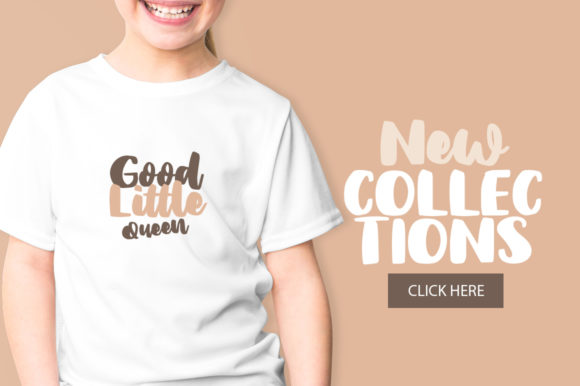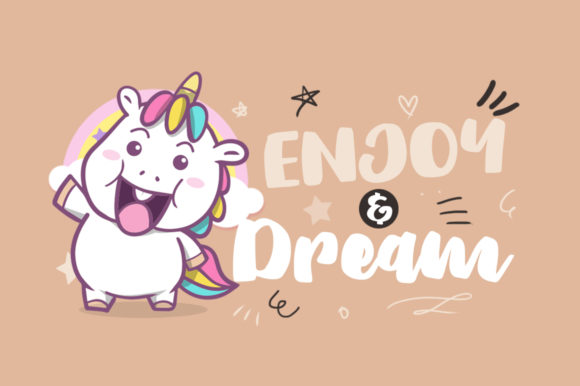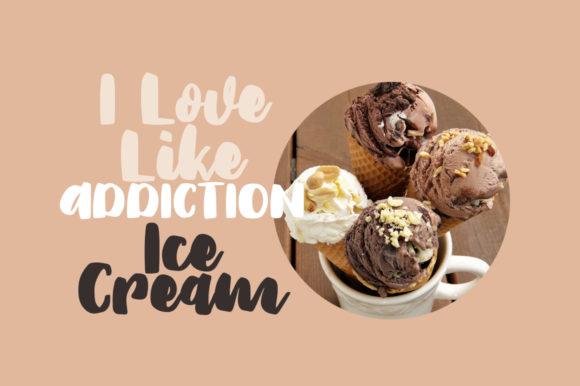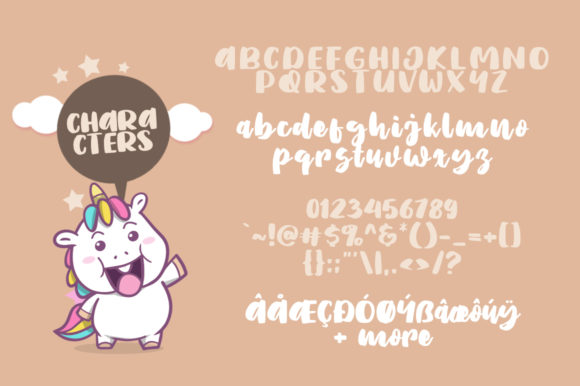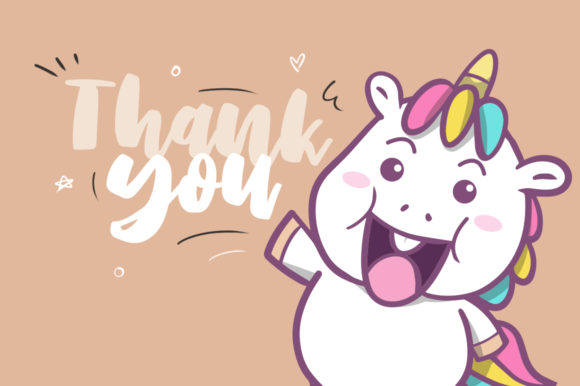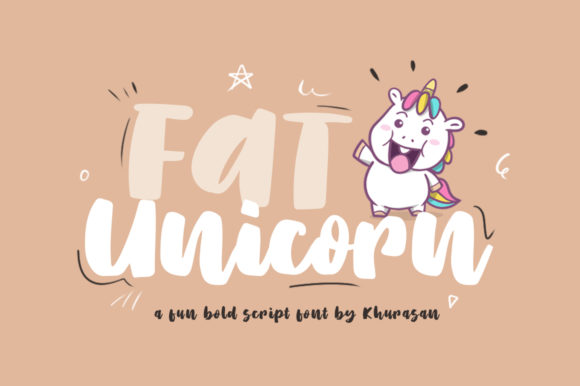
Discover the Magical World of Fat Unicorn Font
Are you tired of using the same old fonts in your designs? Do you want to add a touch of whimsy and magic to your creations? Look no further than the Fat Unicorn Font! This unique bold font is sure to make all your designs stand out and have a special touch.
What is Fat Unicorn Font?
Fat Unicorn Font is a one-of-a-kind font that is sure to capture the hearts of designers and crafters alike. Its bold and playful design makes it perfect for a wide range of projects, from invitations and greeting cards to posters and social media graphics.
The font’s unique design features rounded edges and a chunky feel, giving it a distinctly unicorn-like appearance. It’s the perfect way to add a touch of magic and wonder to your designs.
Features of Fat Unicorn Font
• Unique and Bold Design: The Fat Unicorn Font features a bold and playful design that is sure to make your designs stand out.
• Rounded Edges: The font’s rounded edges give it a soft and friendly feel, making it perfect for designs that need a touch of whimsy.
• Chunky Feel: The font’s chunky feel makes it easy to read and adds to its playful appearance.
• Multilingual Support: The Fat Unicorn Font supports multiple languages, making it perfect for designers who work with international clients.
Uses of Fat Unicorn Font
The Fat Unicorn Font is versatile and can be used for a wide range of projects, including:
• Invitations and Greeting Cards: Add a touch of magic to your invitations and greeting cards with the Fat Unicorn Font.
• Posters and Flyers: Use the font to create eye-catching posters and flyers that are sure to grab attention.
• Social Media Graphics: Add a touch of whimsy to your social media graphics with the Fat Unicorn Font.
• Crafting Projects: Use the font to create custom titles and headings for your crafting projects, such as scrapbooking and journaling.
Why Choose Fat Unicorn Font?
There are many fonts available for designers and crafters, but the Fat Unicorn Font stands out from the rest. Here are just a few reasons why:
• Unique Design: The Fat Unicorn Font features a unique design that is sure to make your designs stand out.
• Easy to Read: The font’s chunky feel and rounded edges make it easy to read, even at small sizes.
• Versatile: The font can be used for a wide range of projects, from invitations and greeting cards to posters and social media graphics.
The Fat Unicorn Font is a unique and bold font that is sure to add a touch of magic to your designs. Its playful design and chunky feel make it perfect for a wide range of projects, from invitations and greeting cards to posters and social media graphics.